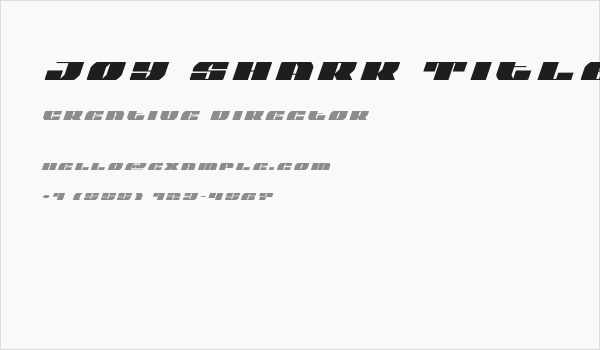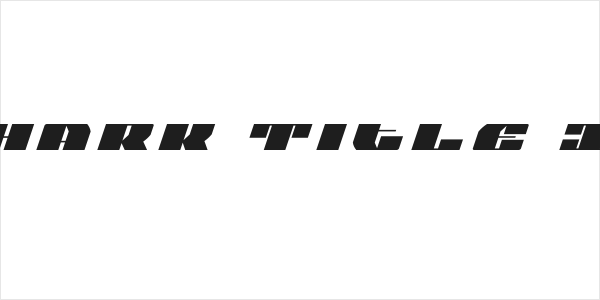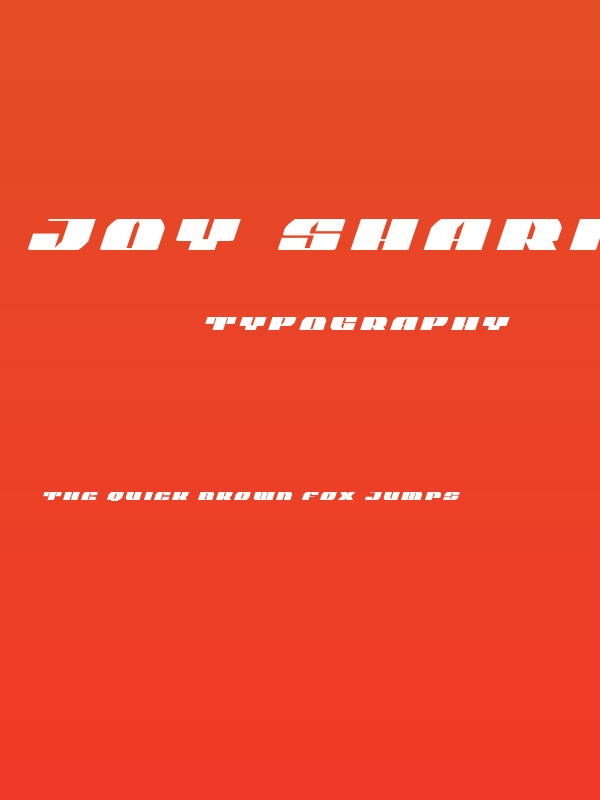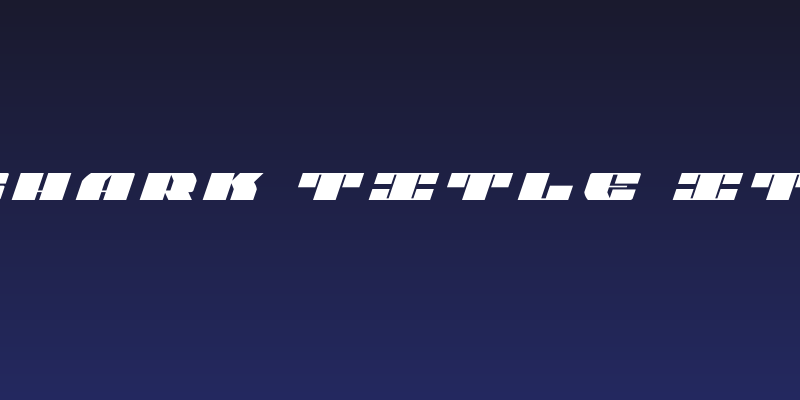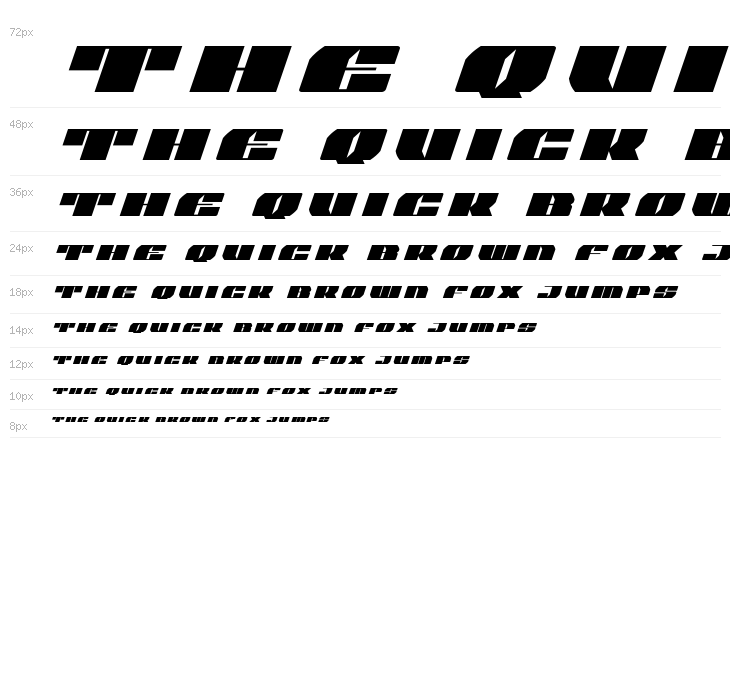
Joy Shark Title Italic Font
Joy Shark Title Italic Description
This font features a bold and dynamic style with a distinct italic slant, giving it a sense of movement and energy. The characters are constructed with sharp angles and geometric shapes, creating a futuristic and edgy appearance. The uppercase and lowercase letters maintain a consistent design, with the uppercase being slightly more pronounced. The numbers and special characters follow the same stylistic approach, ensuring uniformity across all glyphs. The font's boldness and angularity make it stand out, ideal for attention-grabbing designs.
| Proposed Projects | Ideal for sports branding, video game titles, posters, and dynamic logos. |